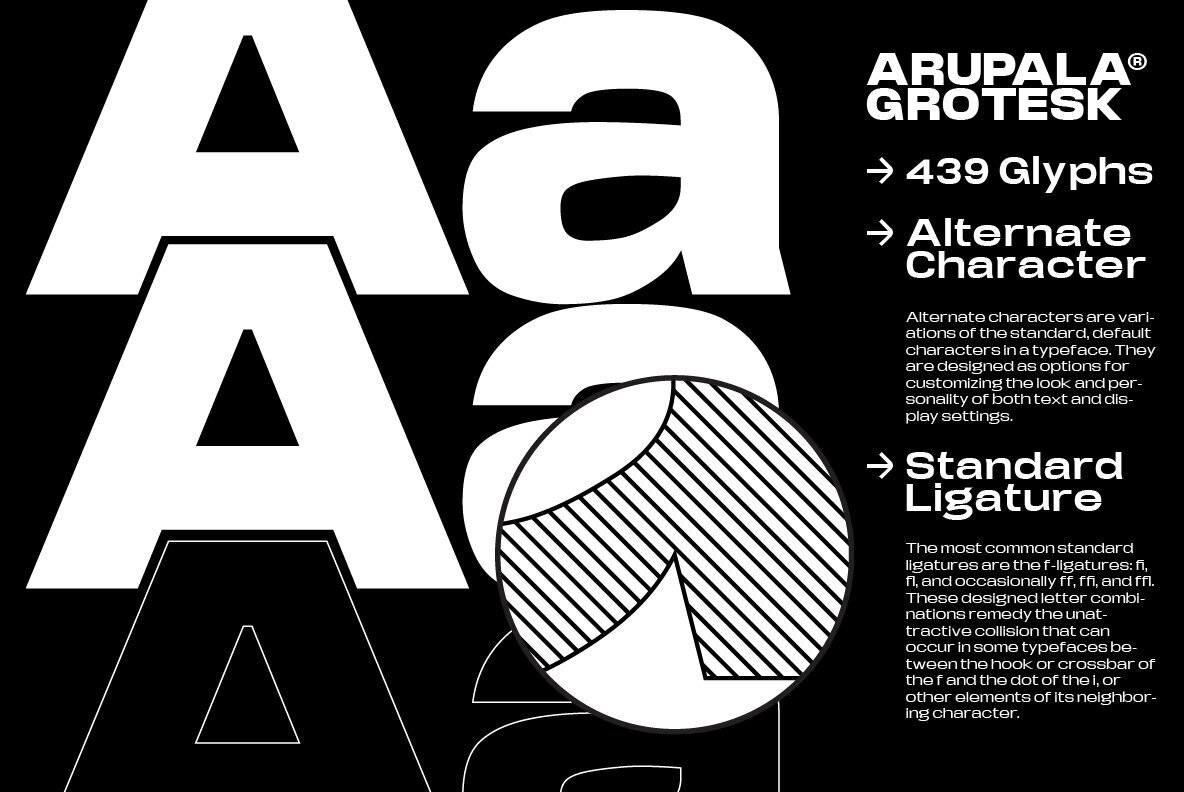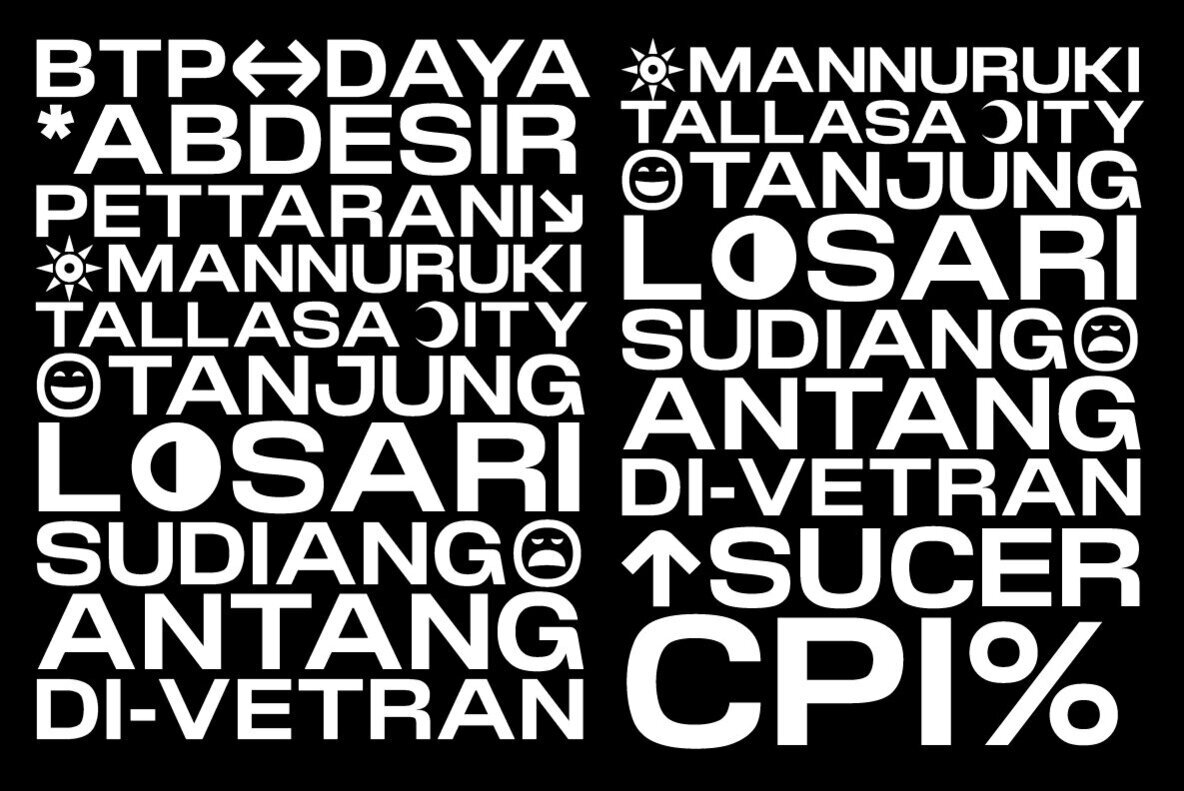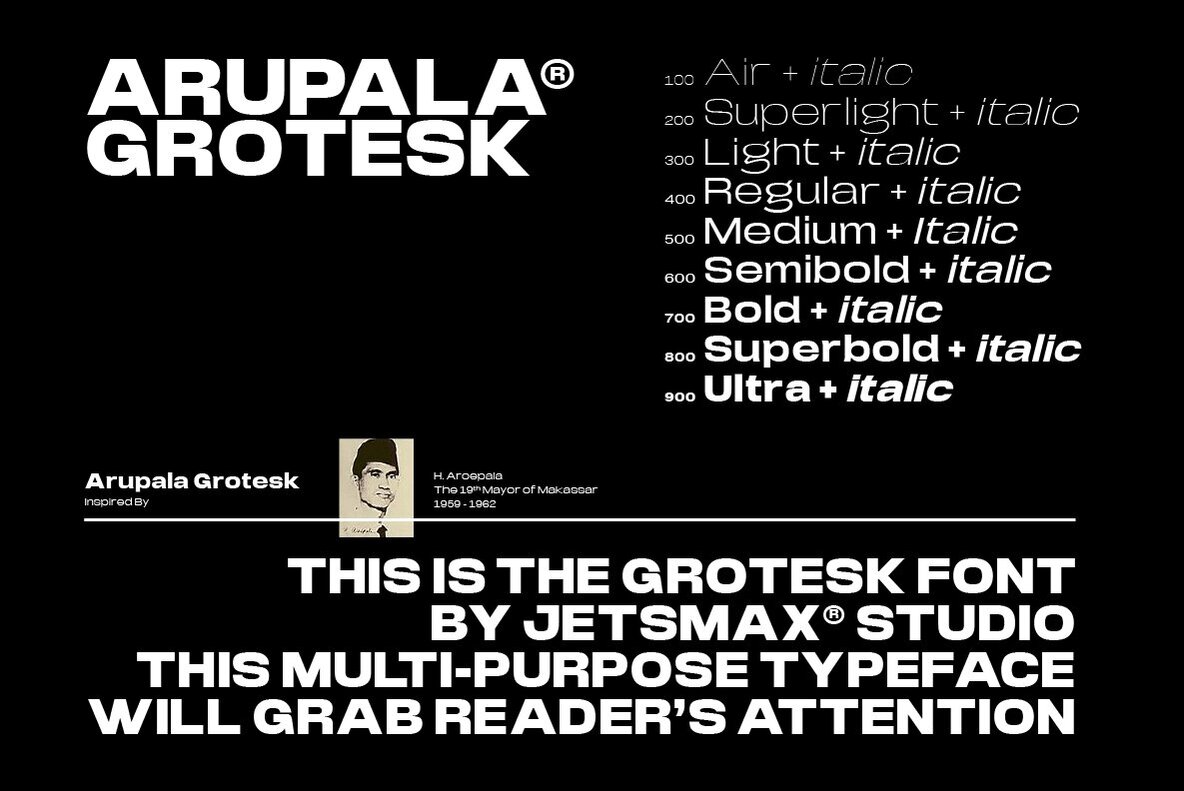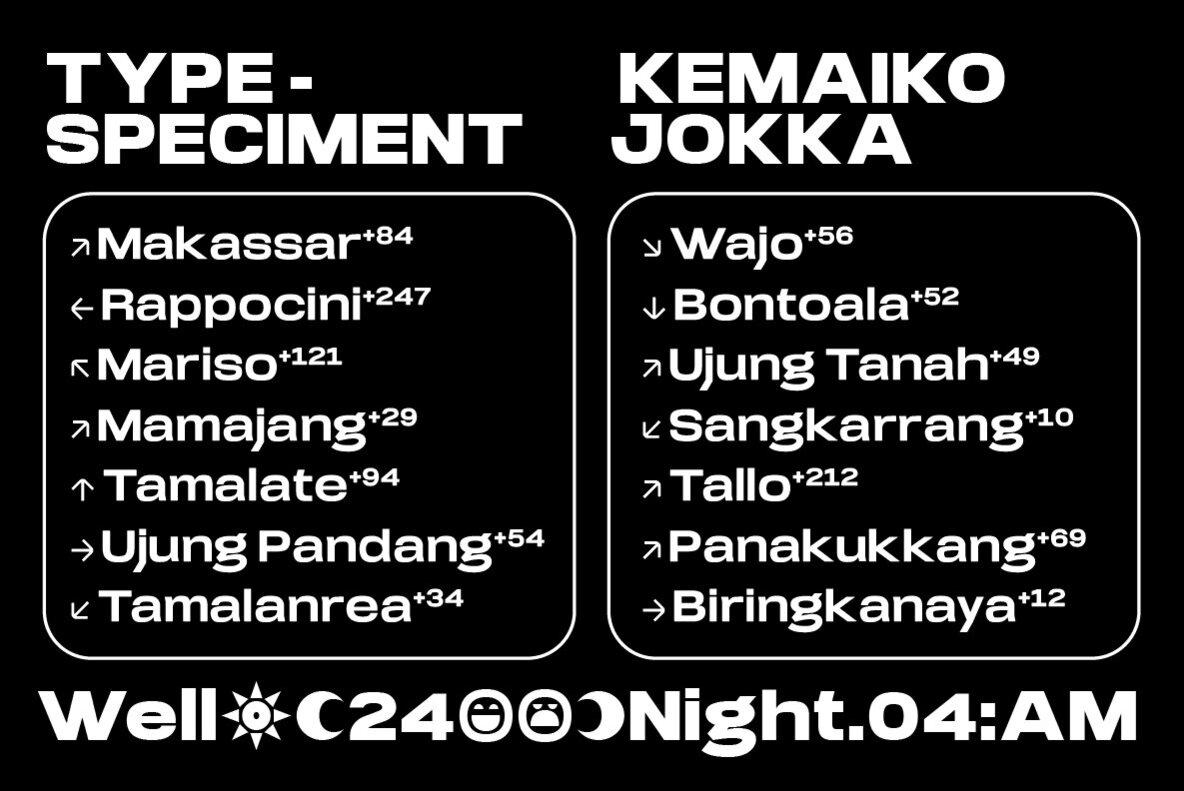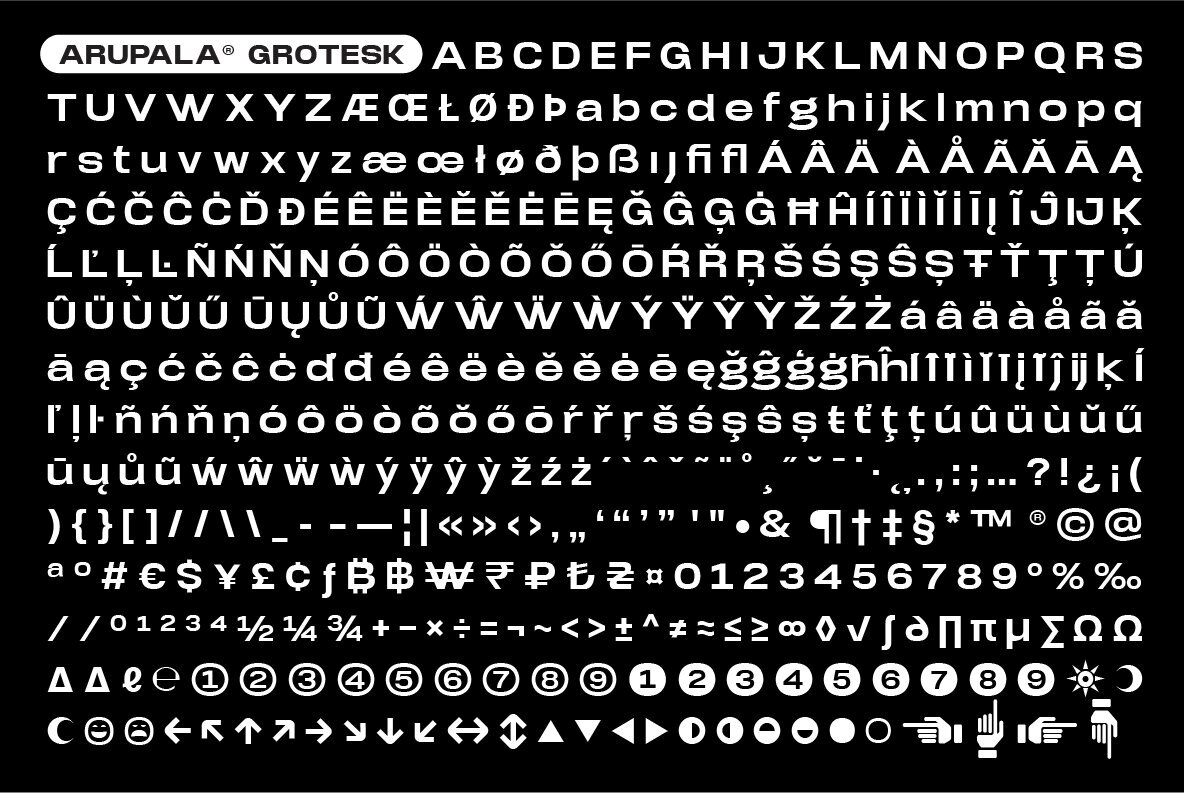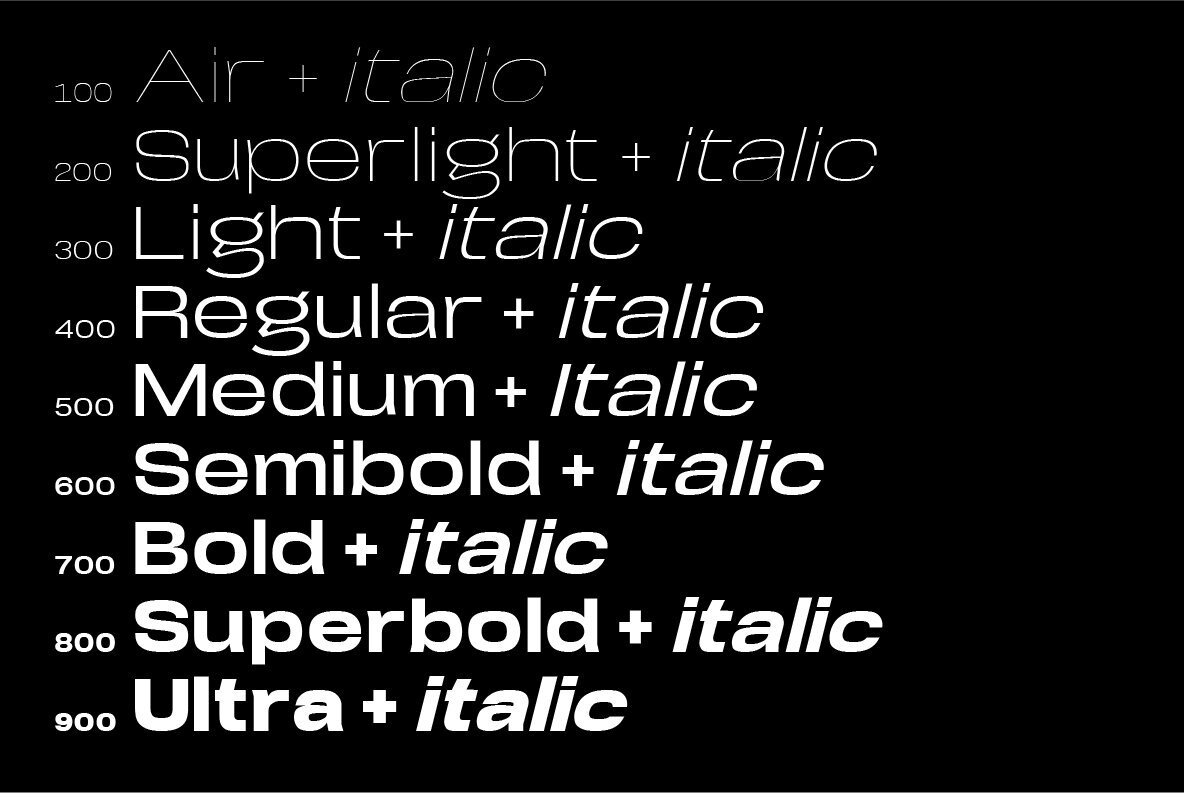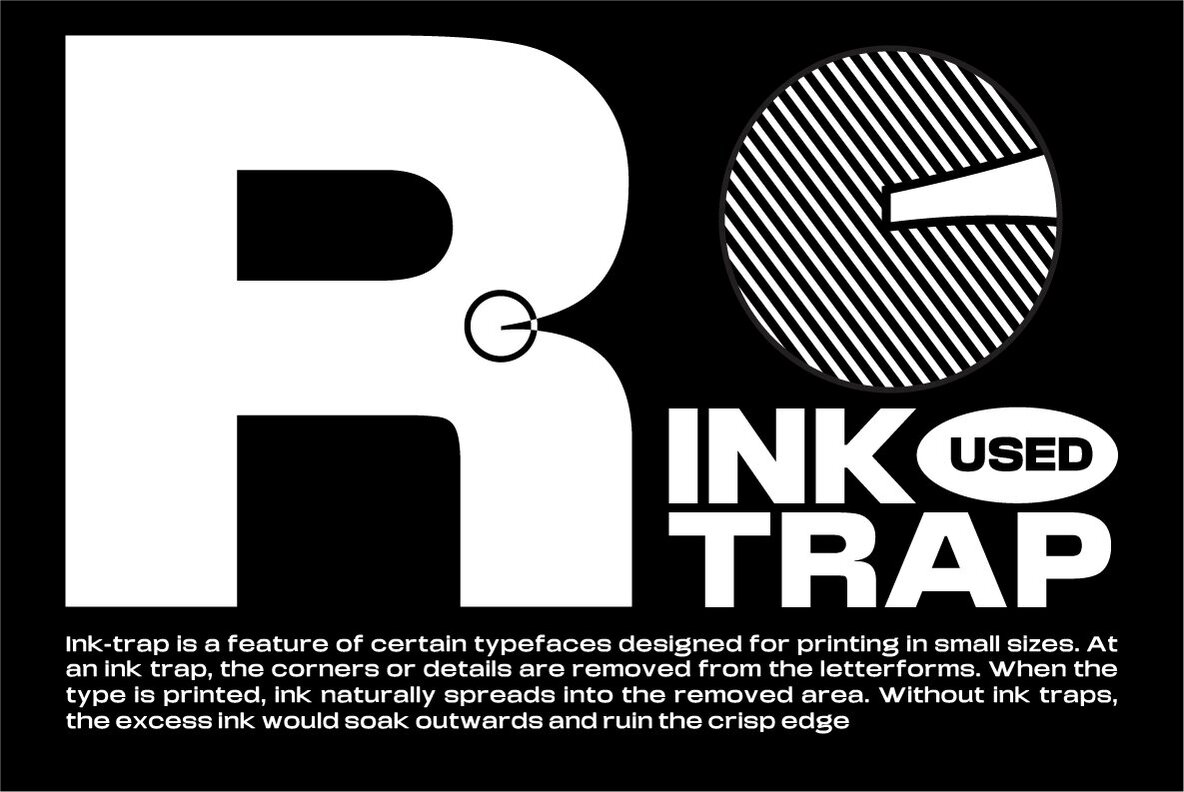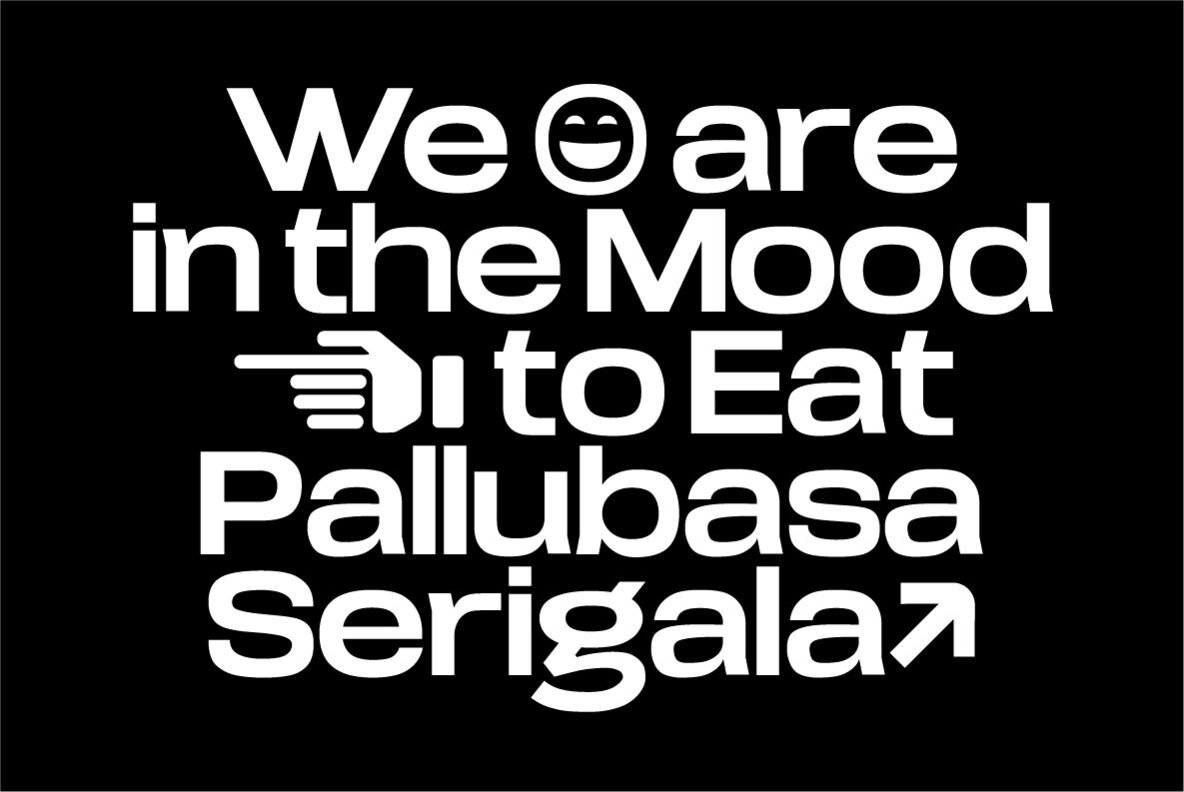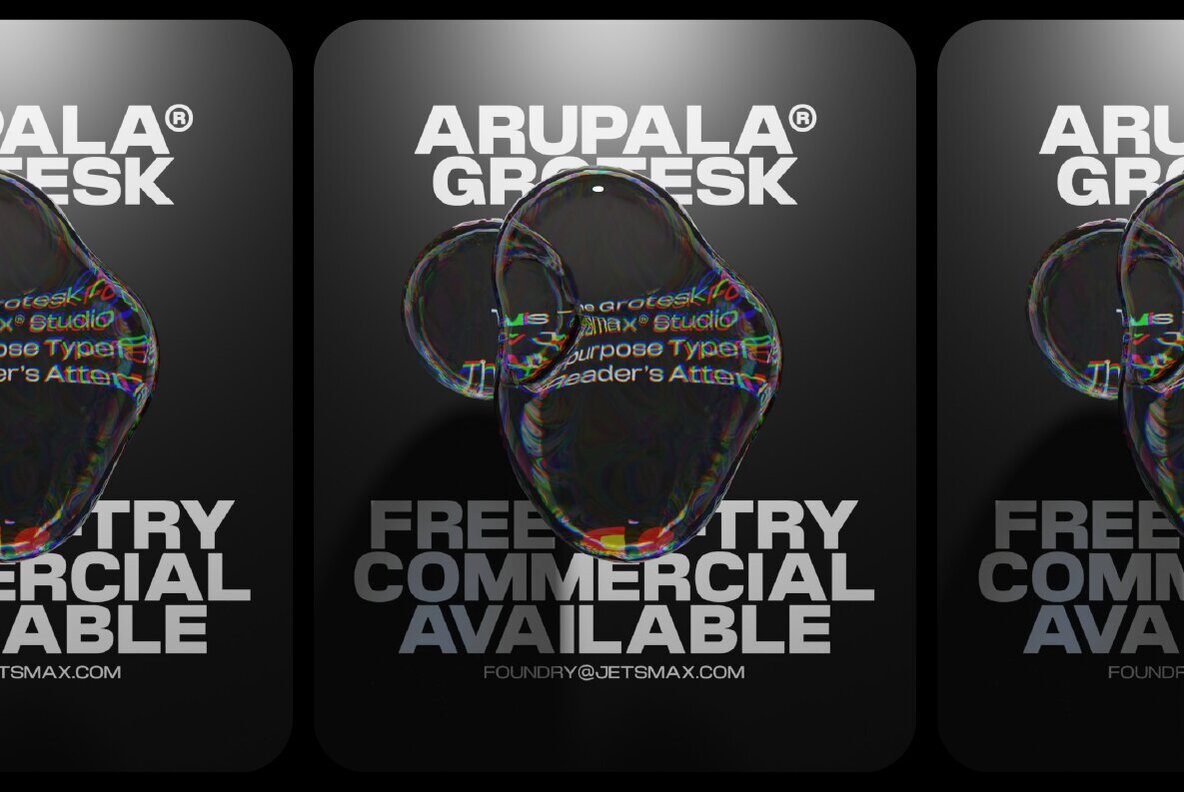
Arupala Grotesk Font
Arupala Grotesk is a Grotesk font this versatile typeface will grab readers’ Attention. This font was inspired by a character named H. Aroepala. This font is suitable for both formal and informal events and is also suitable for various types of print and digital media.